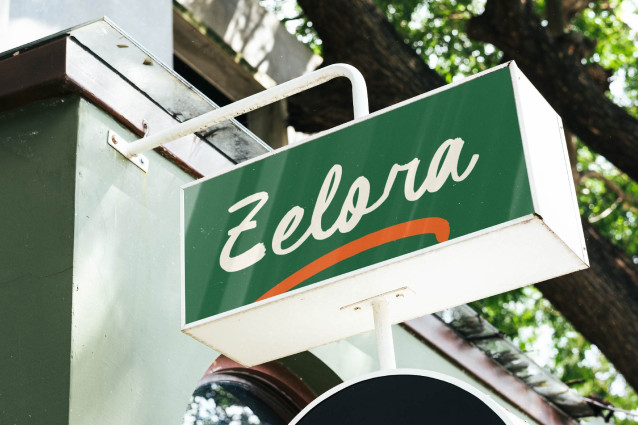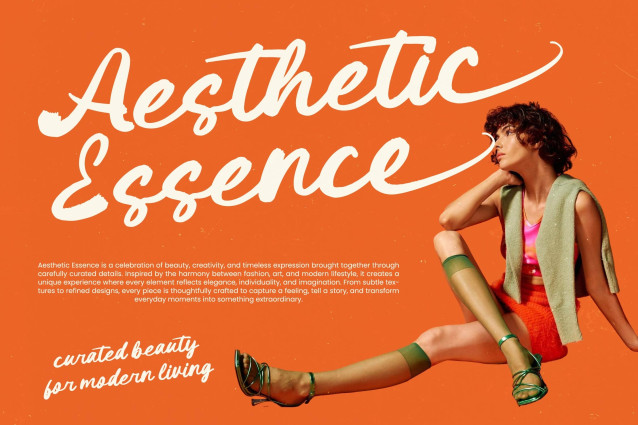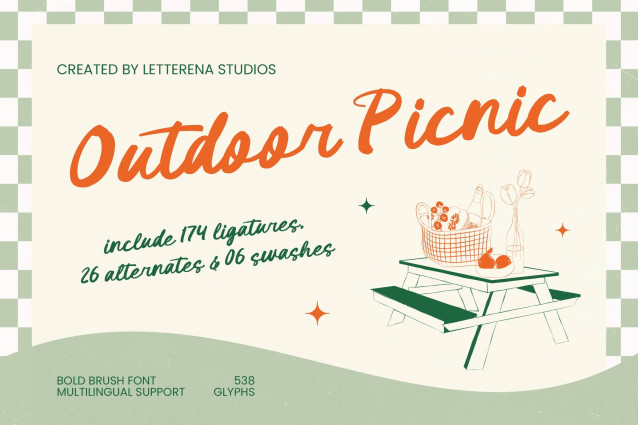
Introduce Outdoor Picnic – Bold Brush Font as a high-impact, handcrafted script designed for brands that value personality and authenticity. Its fluid, expressive brush strokes create an immediate sense of approachability and organic style. By blending traditional calligraphy with a modern retro-inspired aesthetic, this font ensures your message stands out with unmatched visual energy and professional flair.
Experience technical excellence and expansive versatility with a robust set of typographic features. Boasting over 538 glyphs, including a staggering 174 ligatures and 26 alternates, Outdoor Picnic – Bold Brush Font provides endless customization options for a truly bespoke look. With its extensive multilingual support, Outdoor Picnic – Bold Brush Font adapts seamlessly across global markets, making it incredibly versatile for international projects. This ensures your brand identity remains consistent and impactful regardless of the linguistic landscape.